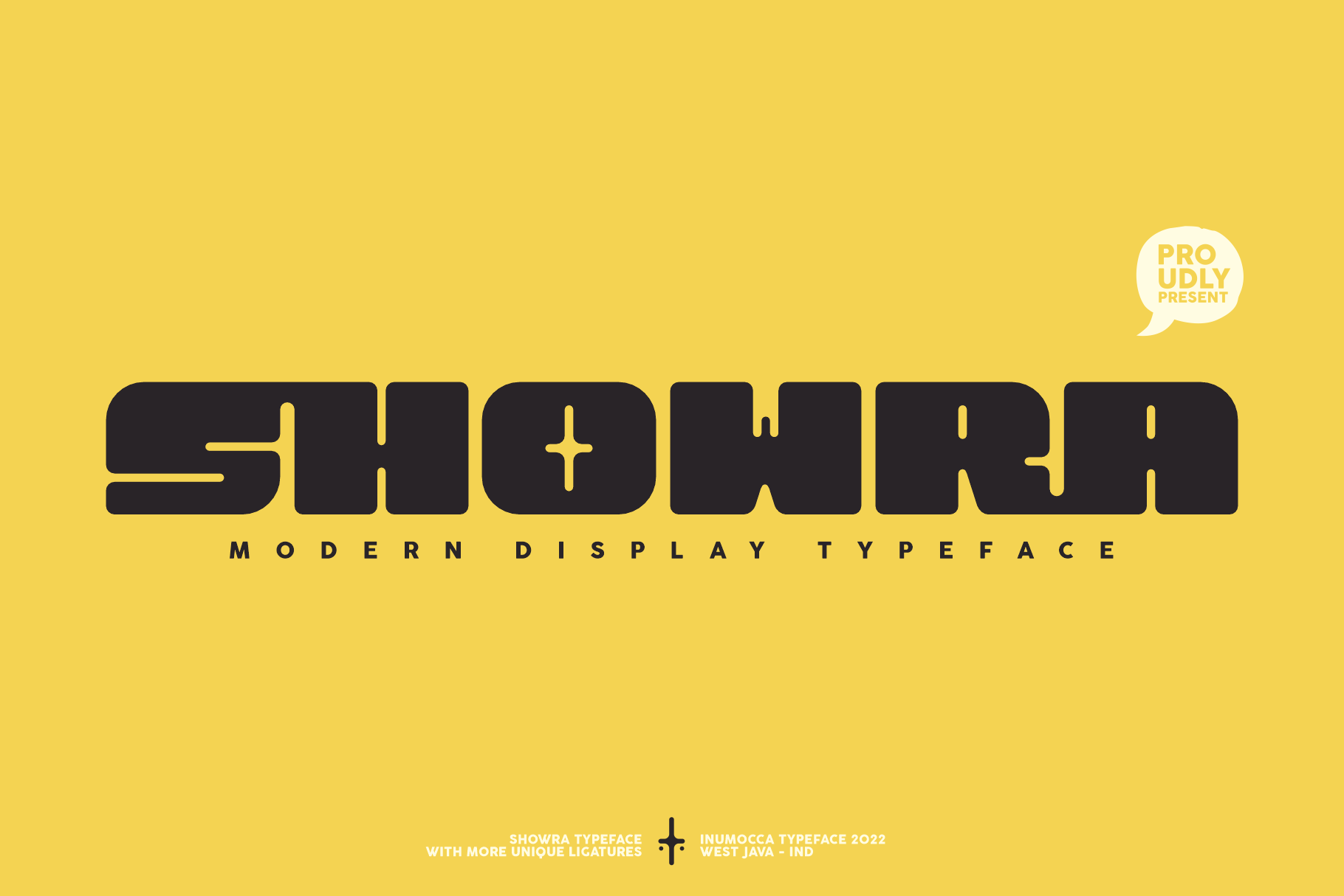
Showra
Showra is a display font family published by inumoccatype.
Showra Modern Display Typeface, Bold and powerfull. and I want to Presenting Modern and Classy tastes. The Typeface comes with Ligature Sets (more than 240) and alternates Exellent typeface to use for covering your Project, like Branding, Movie Title, Headline Letter, Bookcover or Book Content, Magazine cover, Poster, Quotes Lettering, Logos, and more your project design.